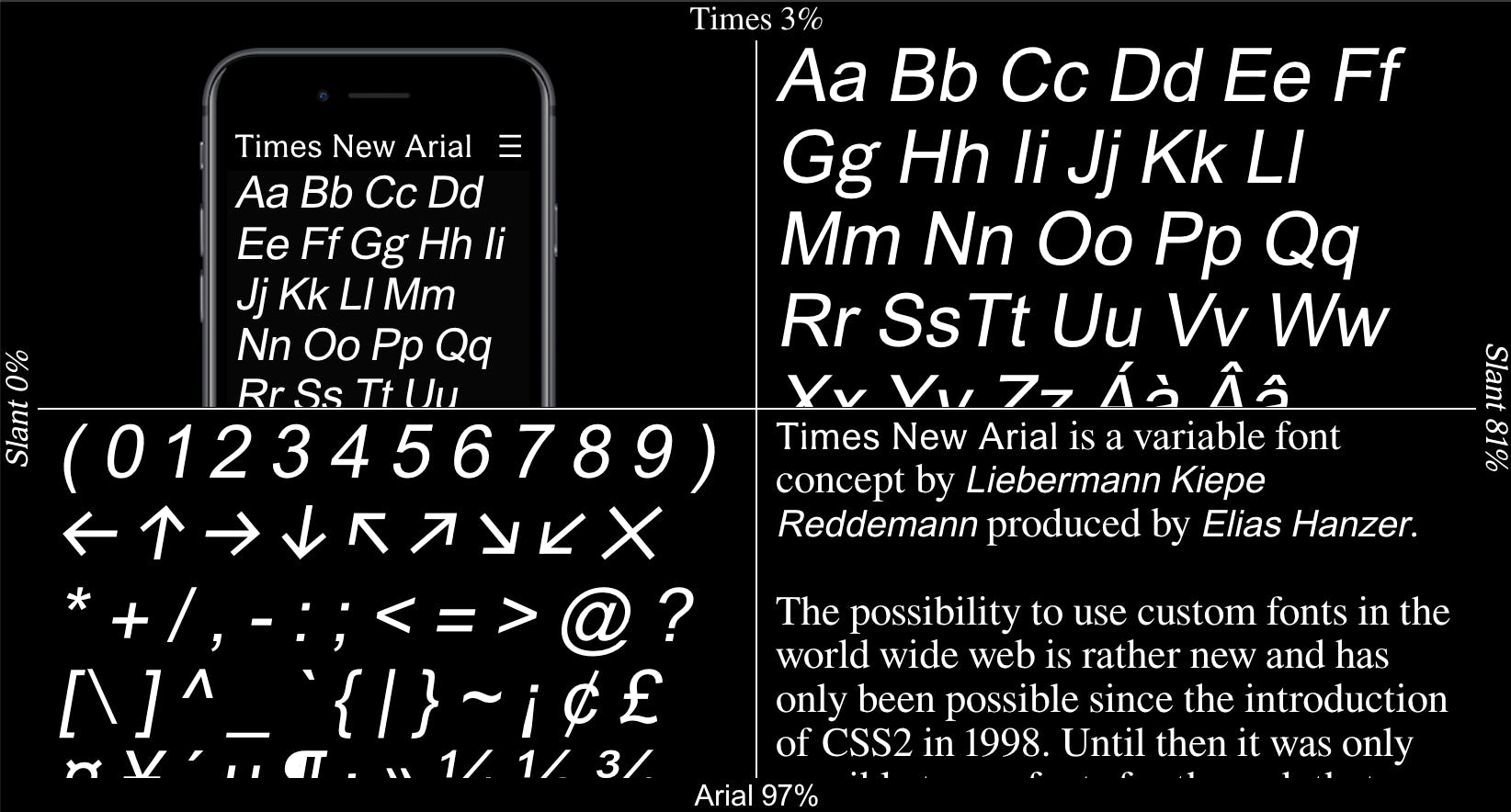
Times New Arial mutates familiar fonts into something wholly new
A project out of design studio Libermann Kiepe Reddemann (LKR) in Hamburg, Germany, in conjunction with designer Elias Hanzer, Times New Arial is a variable font that combines two of the most instantly recognizable fonts of the last two decades. Variable fonts are children of the internet. They’re single font files that can dynamically adjust their height, width, slant, or other attributes without the need for a larger font file size, which makes them great for responsive web design.
“The possibility to use custom fonts in the world wide web is rather new and has only been possible since the introduction of CSS2 in 1998,” LKR explains. “Until then it was only possible to use fonts for the web that were installed on the user’s computer, the so-called system fonts.” Those system fonts were Times New Roman — the serif option — and Arial — the grotesque or sans-serif one.
That’s why, according to LKR, that pair of fonts “nowadays embody default and nostalgic web design.” In an interview with It's Nice That, LKR's David Liebermann says, "We wanted to combine this conventional aesthetic with new technical possibility in order to revive and refine them, so in turn, we could experiment with them in our projects."
Cool, but to what end? —
“With the new technique of variable fonts it is now possible to combine the two visual extremes in one interpolated typeface,” LKR explains. “The new technological possibilities transfer the meaning of this hybrid font into a new era of font usage.”